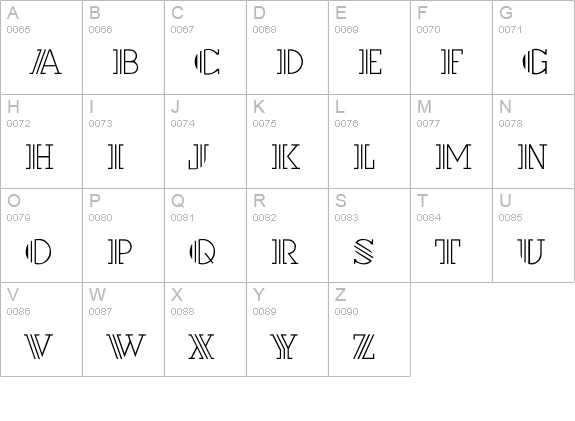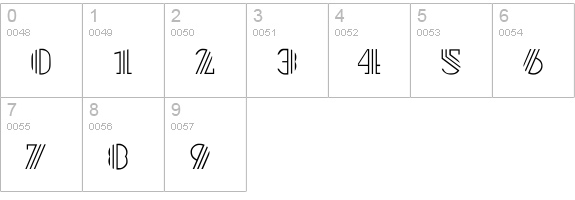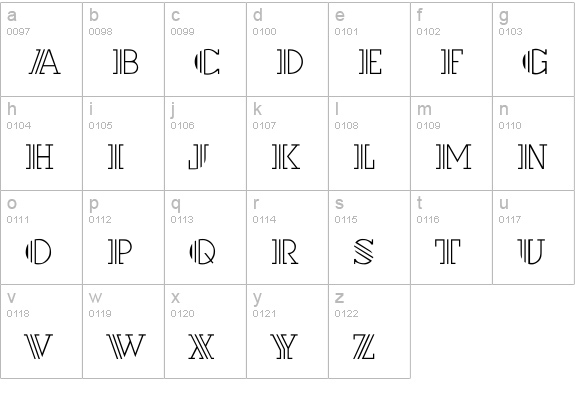
BLT Font Details
BLT font is a modern and stylish typeface that exudes elegance and sophistication. With its sleek lines and unique design, BLT font is the perfect choice for adding a touch of class to any project. Whether you're creating a logo, designing a website, or crafting a poster, BLT font is sure to make a statement. Best of all, BLT font is completely free to download at FontsMarket.com. This means you can add this beautiful font to your collection without breaking the bank. Don't miss out on the opportunity to enhance your designs with the stunning BLT font – download it today and let your creativity shine!